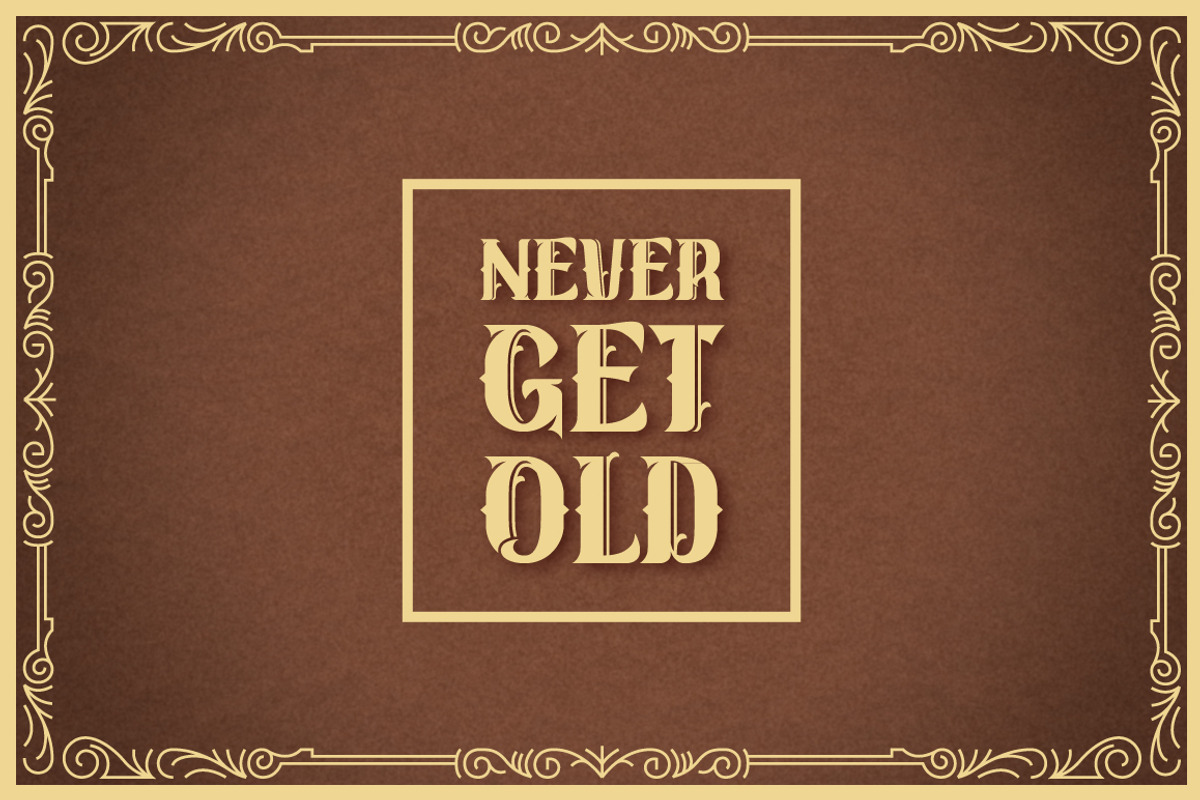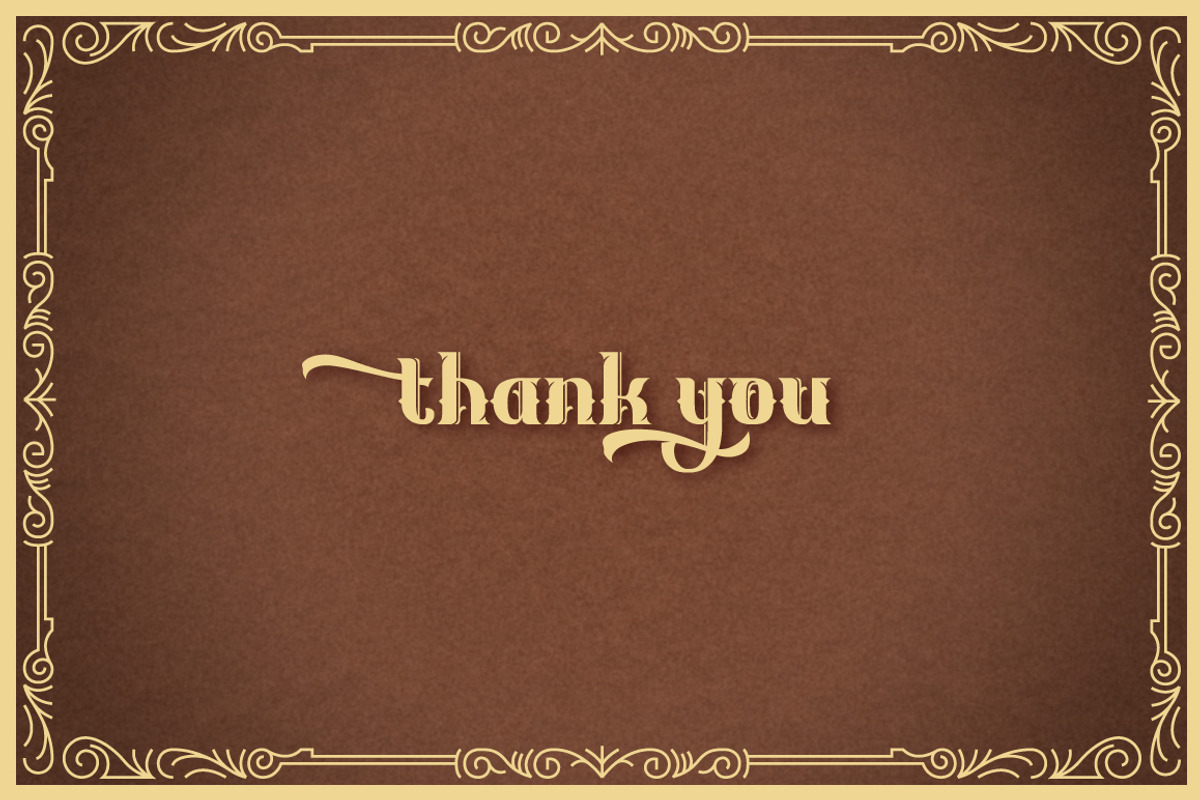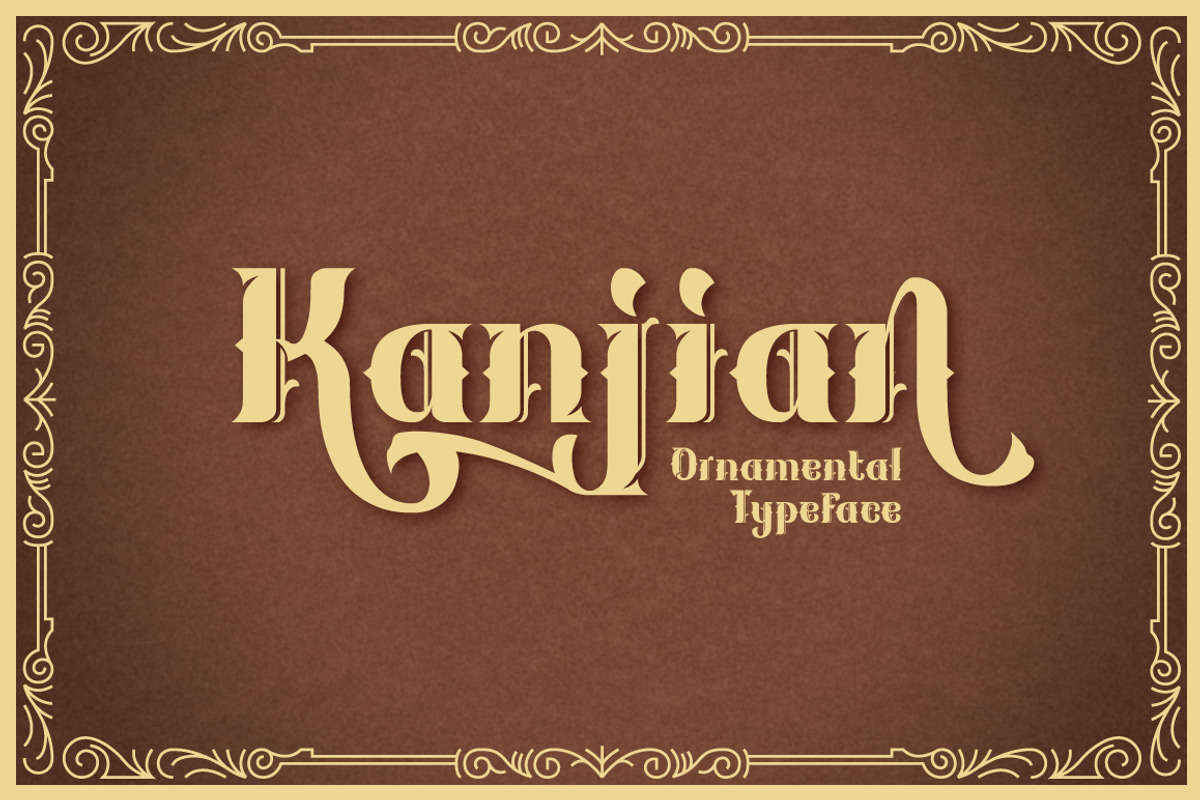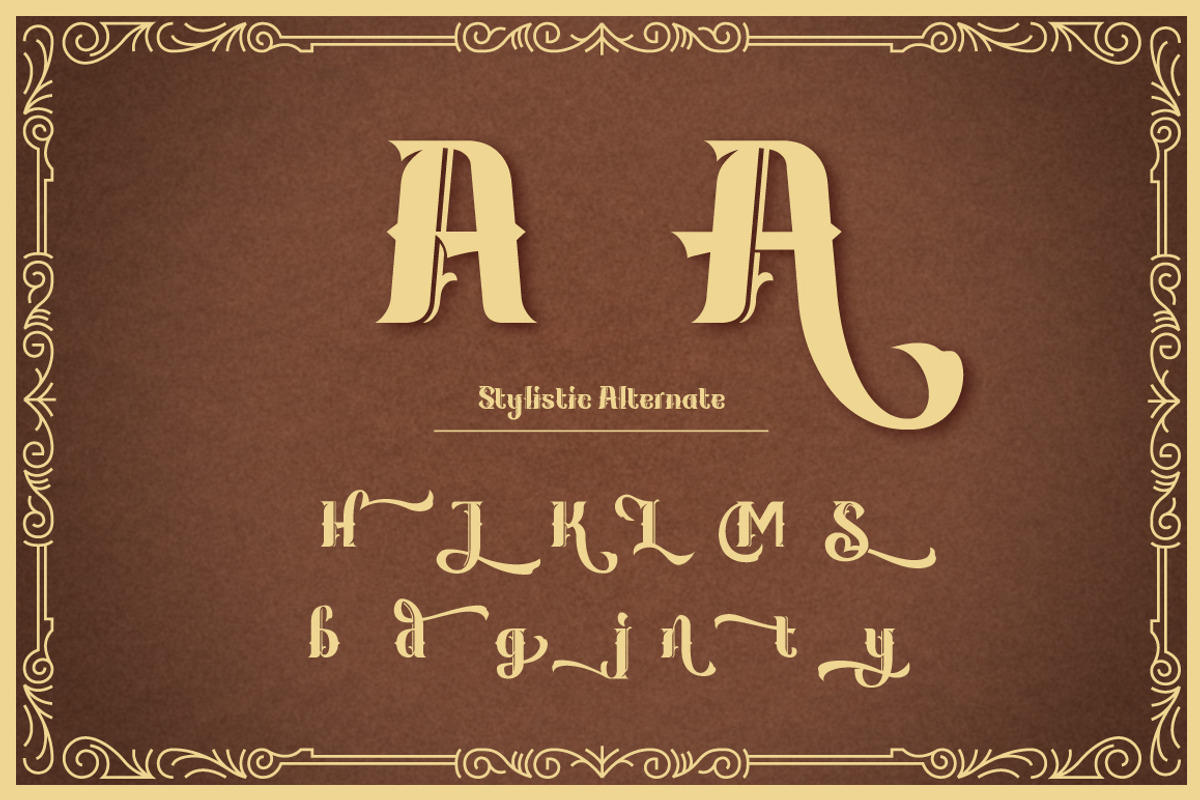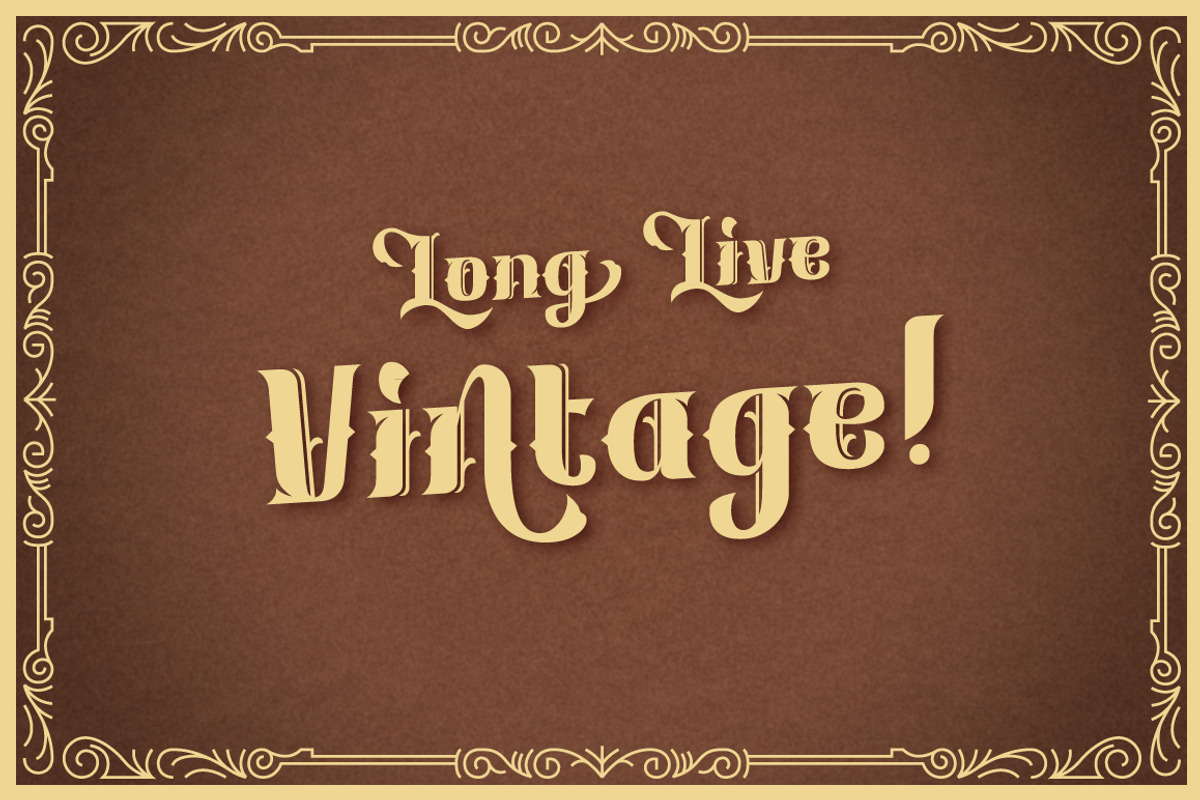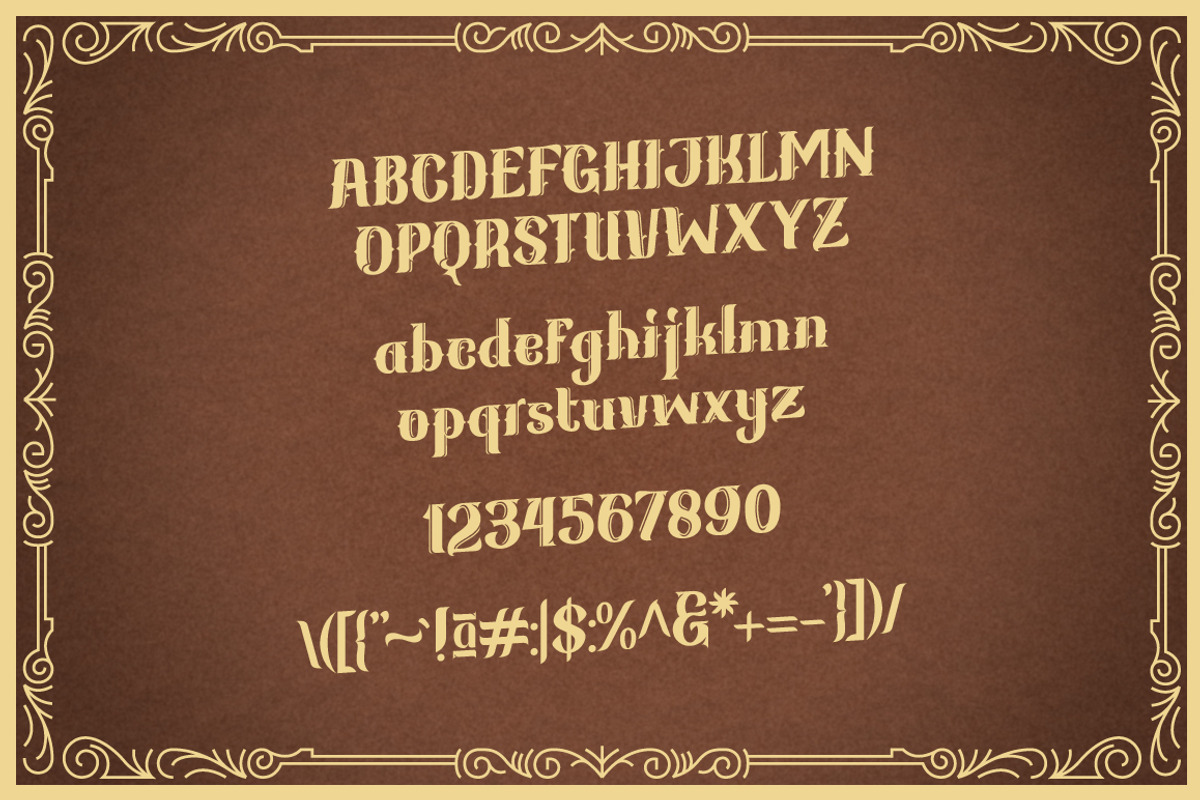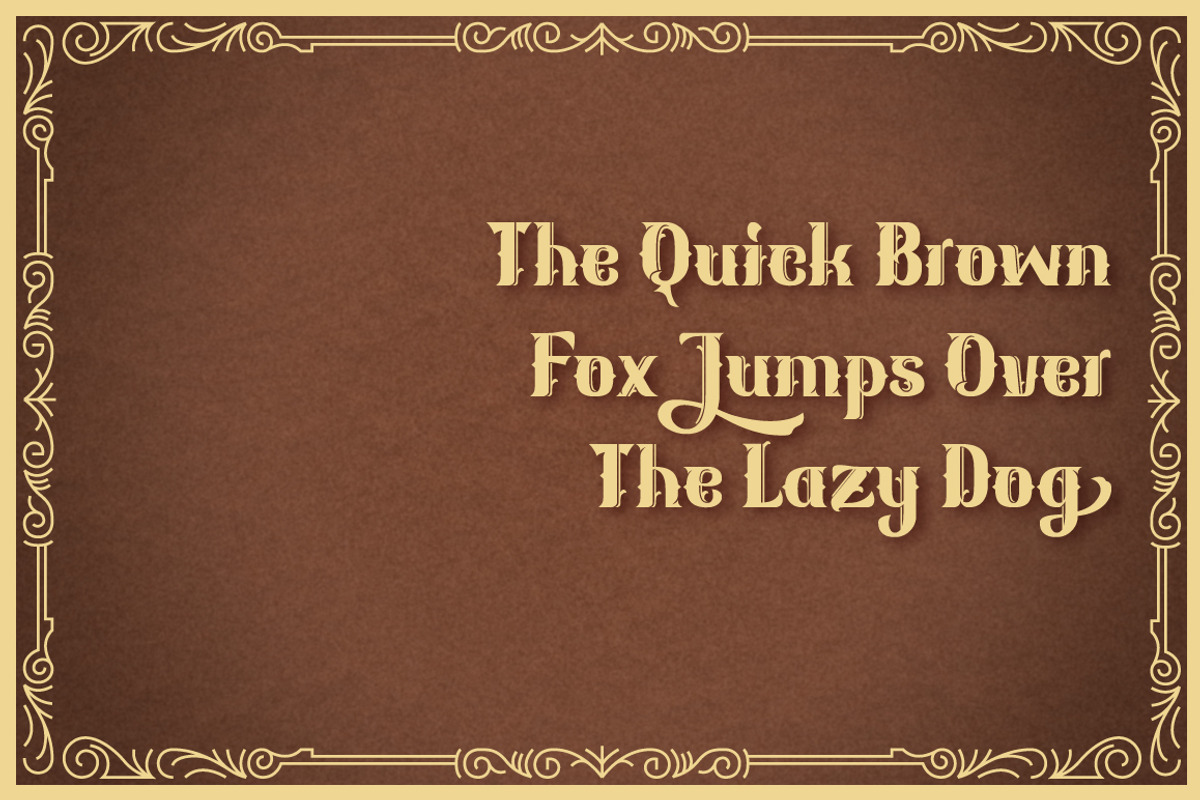
Kanjian Typeface
Kanjian Typeface by Arterfak Project is a font selected for branding, posters, packaging, typography.
Why Kanjian Typeface is worth a look
Kanjian Typeface by Arterfak Project fits naturally into Branding, posters, packaging, typography.